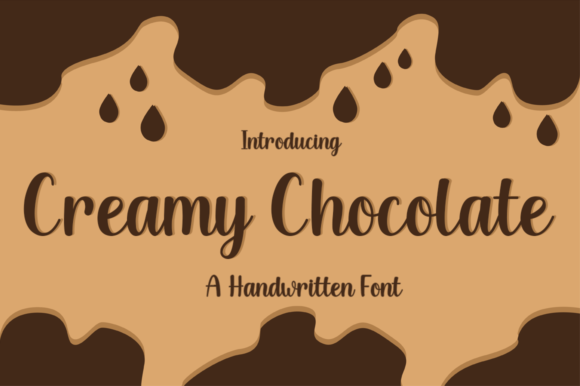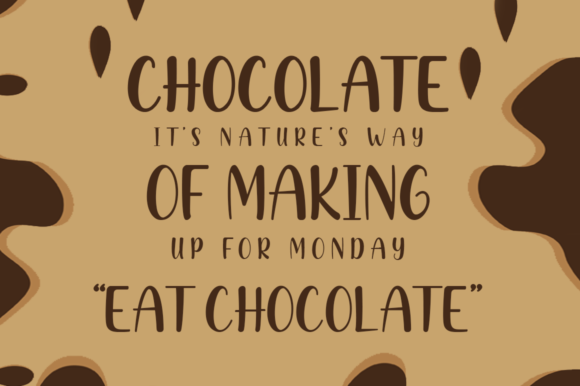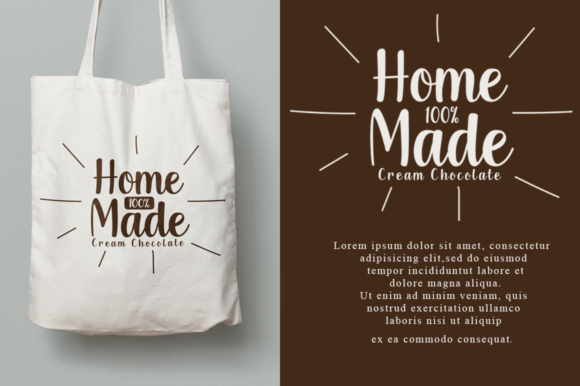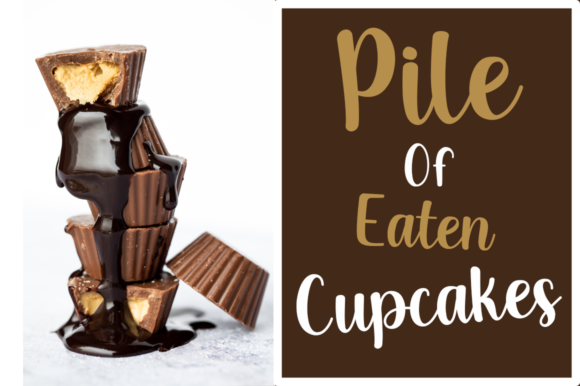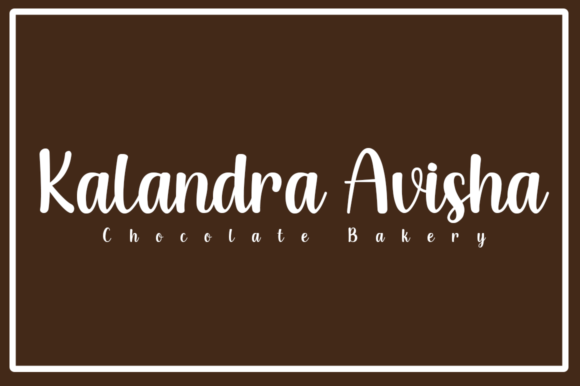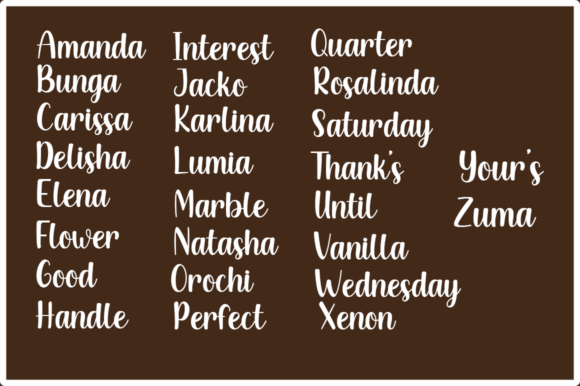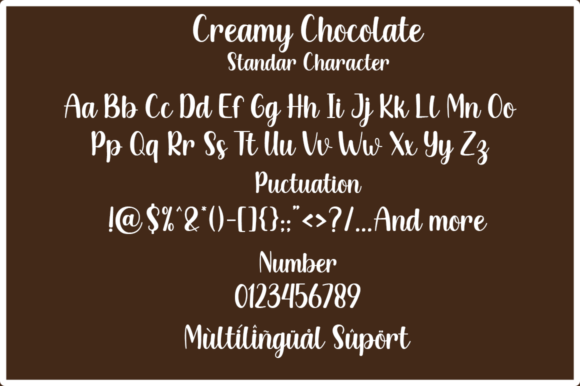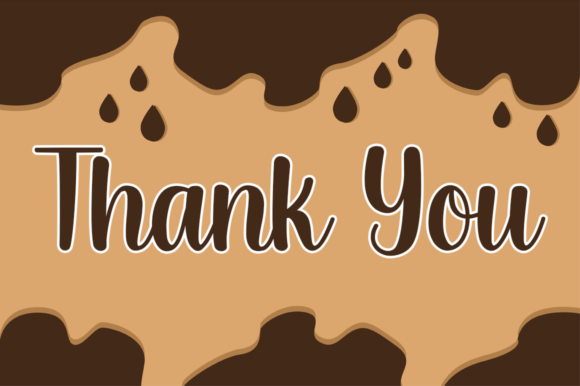
Creamy Chocolate Font
About Creamy Chocolate Font
Creamy Chocolate is a cute and elegant handwritten font with an incredibly friendly feel. Whether you’re looking for fonts for Instagram or calligraphy scripts for DIY projects, This font will turn any creative idea into a true piece of art!